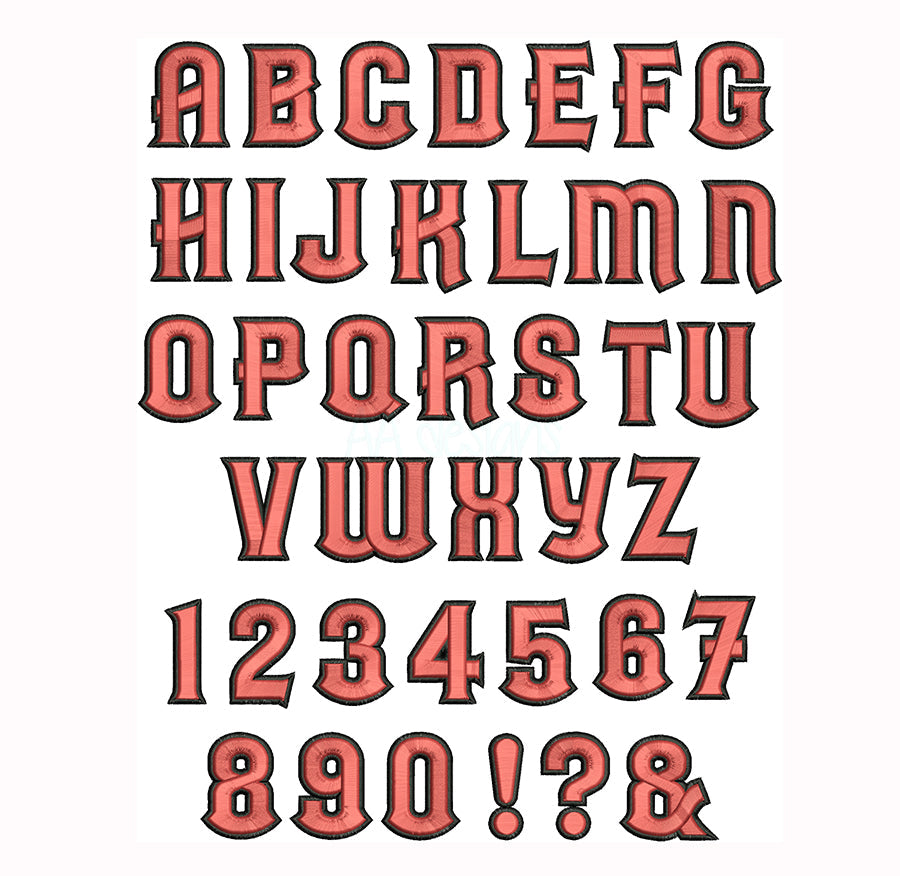
3D Puff Embroidery Fonts — What You Need to Know
What is 3D Puff Embroidery?
3D puff embroidery is a technique that creates raised, dimensional lettering by stitching over a layer of foam. The result is bold, eye-catching text that literally pops off the fabric — making it a favorite for hats, caps, jackets, and sportswear.
If you've ever seen a snapback cap with thick, raised lettering, that's almost certainly 3D puff embroidery.
How Does 3D Puff Work?
The process is simpler than it looks:
- Place a piece of puff foam (usually 2mm or 3mm thick) over your fabric in the hoop
- Stitch your design directly over the foam
- The stitches compress the foam around the edges, creating a raised center
- After stitching, tear away the excess foam from around the design
The key is using a font specifically digitized for 3D puff. Regular embroidery fonts won't work well — they need special underlay stitches and higher density to hold the foam in place properly.
What to Look for in a 3D Puff Embroidery Font
- Minimum letter height of 1 inch — 3D puff doesn't work well at small sizes. Letters need to be large enough for the foam to show through.
- Bold, thick strokes — Thin script fonts are not suitable for 3D puff. Block letters, varsity fonts, and bold sans-serif styles work best.
- Digitized specifically for puff — The font should be labeled as a "3D puff font" to ensure the stitch density and underlay are correct.
Best Projects for 3D Puff Fonts
- 🧢 Snapback and trucker hats — The most popular use for 3D puff
- 🧥 Varsity jackets and hoodies — Bold team names and numbers
- 👟 Shoes and sneakers — Small accent logos
- 👜 Bags and backpacks — Brand names and monograms
Tips for Stitching 3D Puff
- Use a sharp needle (size 75/11 or 80/12) to pierce the foam cleanly
- Slow your machine speed slightly for better control
- Use cutaway stabilizer for stretchy fabrics like caps
- Score the foam lightly with a pin before tearing to get clean edges